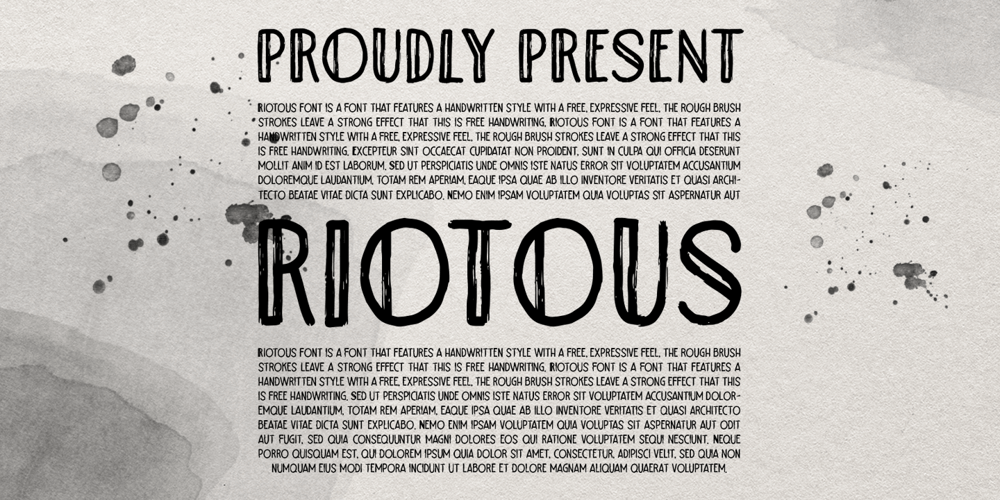
Riotous Font Family was designed by Hendry Juanda and published by Letterhend. Riotous contains 1 styles and family package options. Introducing, Riotous Brush Font! Riotous is a font that features a handwritten style with a free and expressive feel. the rough brush strokes leave a strong effect to make your design looks more natural and unique!What will you get: Including number and symbol. Support Multi Language This font also support PUA Encoded! So, grab your own. Thank You!